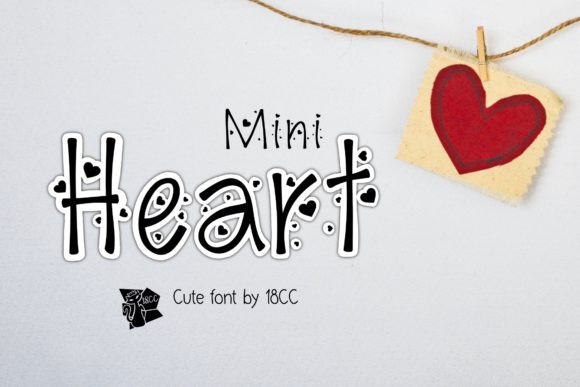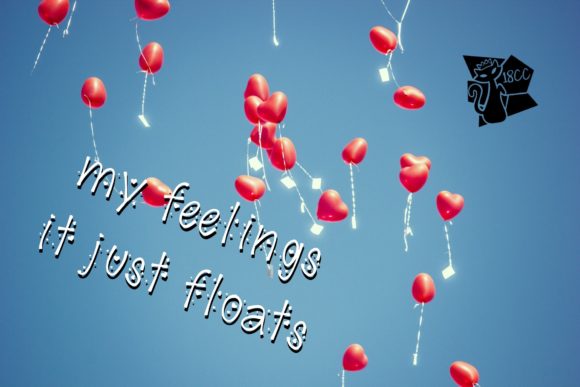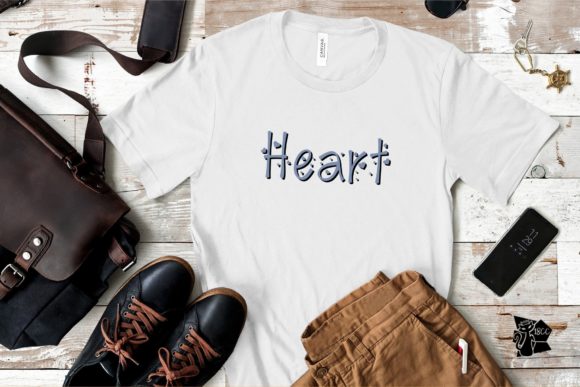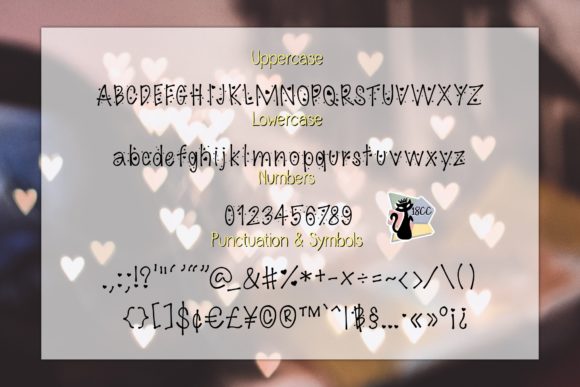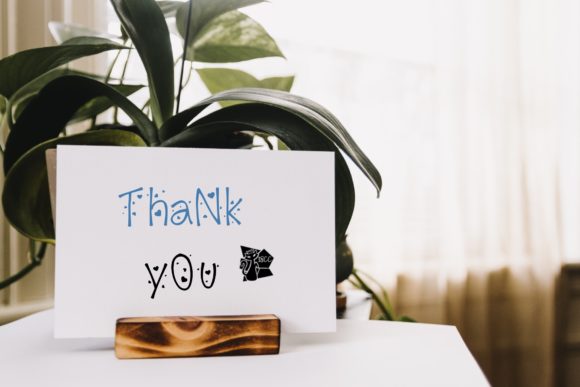
Mini Heart Font
Mini Heart is a cute and romantic handwritten font. This font is the perfect fit for all of your logos, branding, social media, crafty DIY projects, and much more!